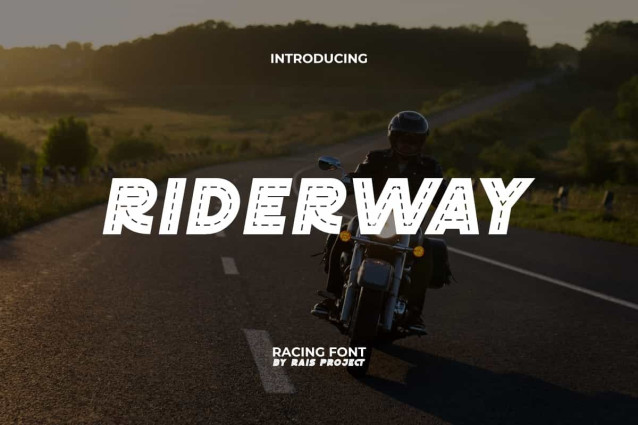
Riderway Font
Riderway Font is a playful creative gaming and racing font by RaisProject. This font has a dotted line inspired by the streets. It will be good for any designs, such as custom design, poster, product packaging, quotes, poster, signage, brand image, advertisement, invitation, label, marketing material, stationery, website page, and more!
Riderway Font includes a full set of ALL CAPS for Uppercase and Lowercase Letters, Numerals, and large range of Punctuation. This modern font will be suitable for various industries, such as automotive, sports, fashion, game, barber shop, cafe, event or festival, photography, printing, publishing, etc.